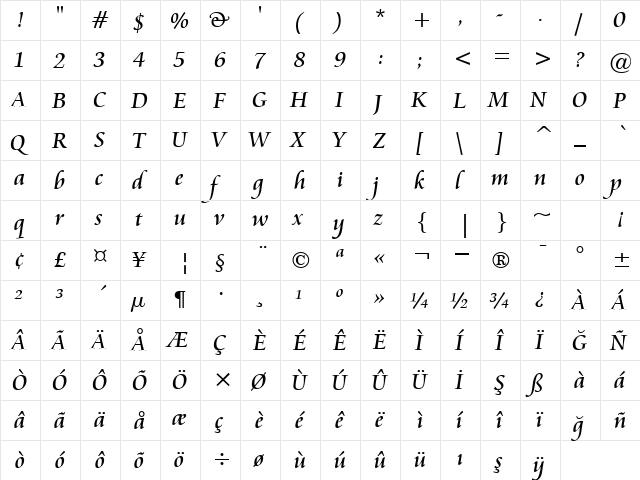
00629 Regular
Design Context for 00629 Typeface
00629 takes a measured approach to typography — its balanced proportions and neutral character make it a reliable workhorse for both digital and print work.